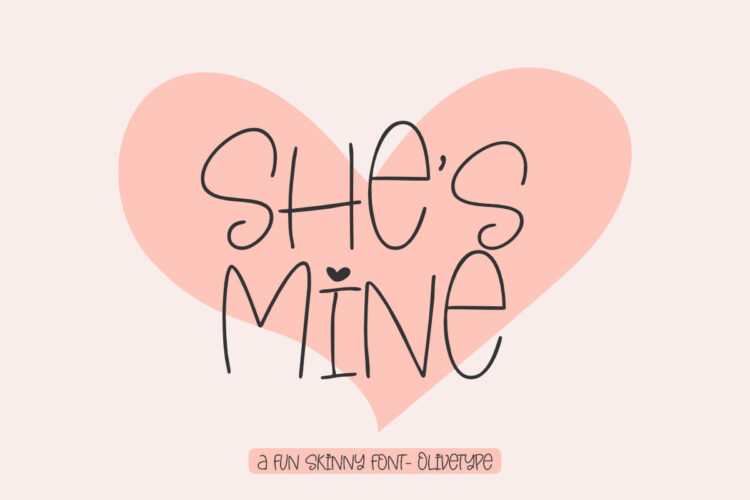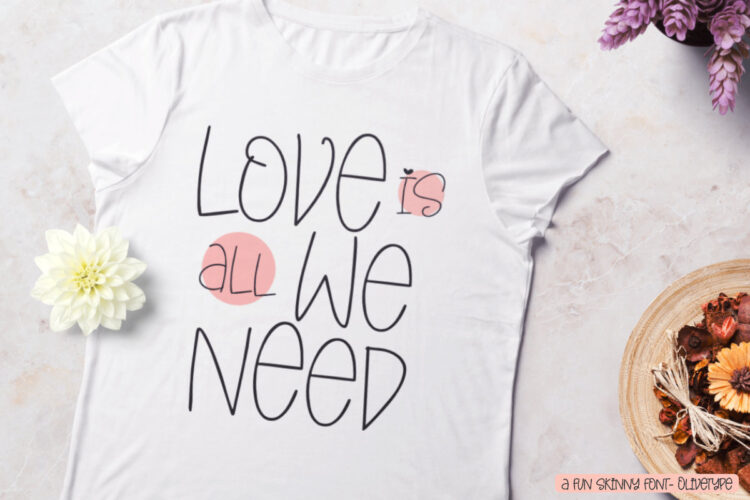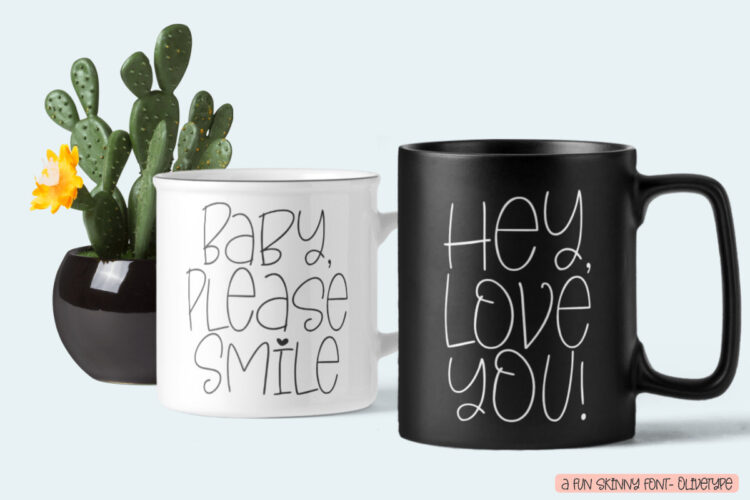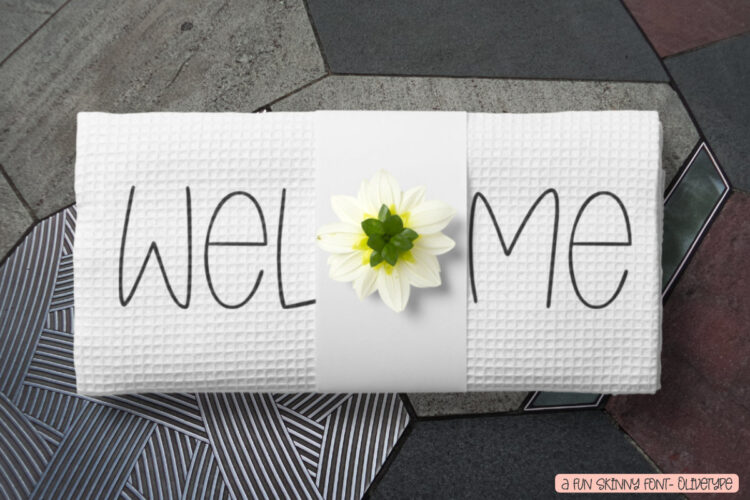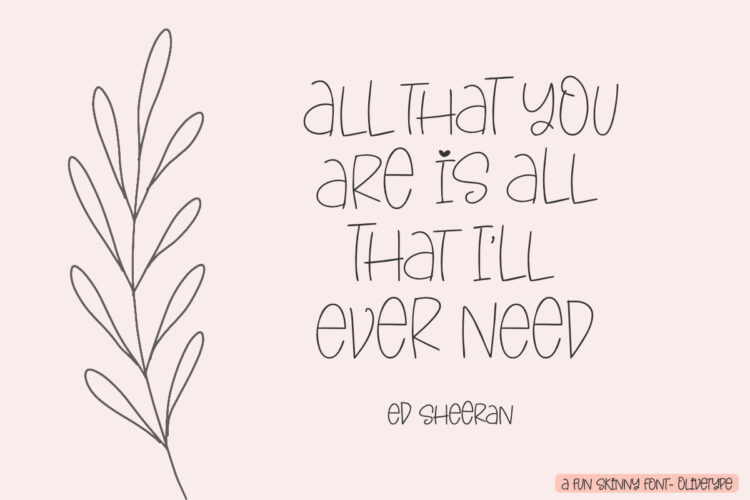
She’s Mine is a cute and thin handwritten font. Its sweet style makes this font a wonderful choice for brightening up your designs.
This font is supporting more than 66 languages, which include: Afrikaans Albanian Catalan Danish Dutch English Estonian Finnish French German Italian Norwegian Portuguese Spanish Swedish Zulu, and more.
- Basic Latin A-Z & a-z.